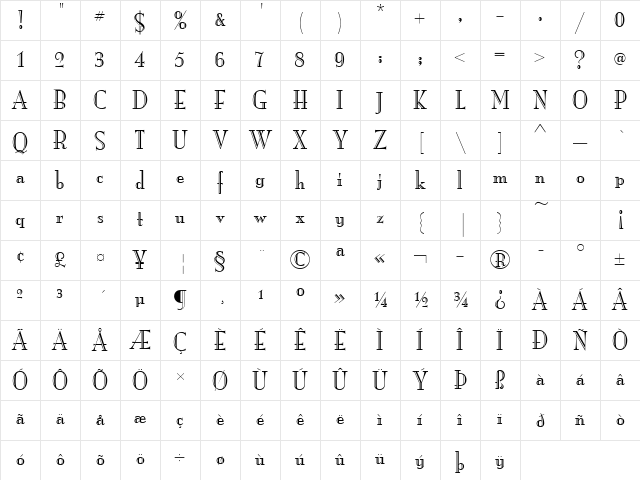
Mona Lisa Recut Regular Free Font
Mona Lisa Recut Regular
Complete Mona Lisa Recut Regular glyph index. Displaying only characters natively supported by Mona Lisa Recut Regular font.
Design Context for Mona Lisa Recut
Mona Lisa Recut is a composed and adaptable typeface that performs quietly and consistently across a wide range of design contexts.